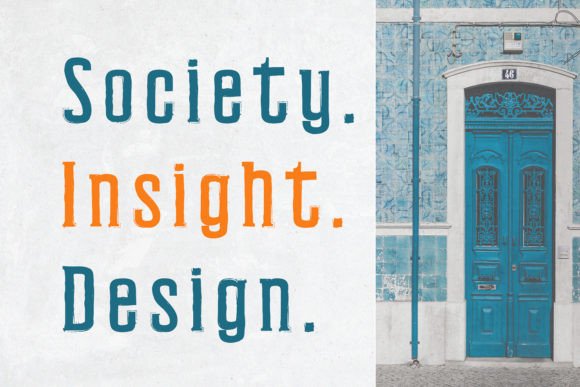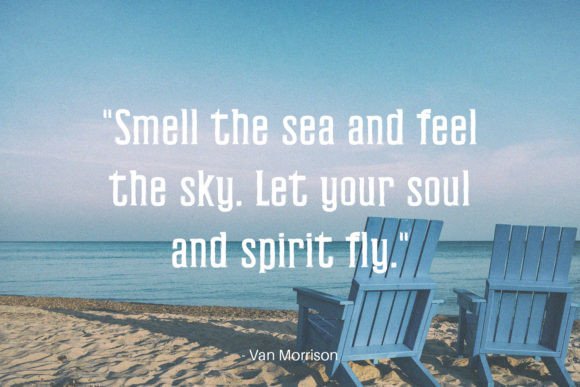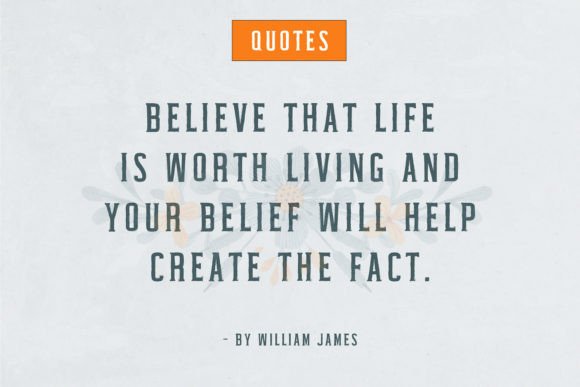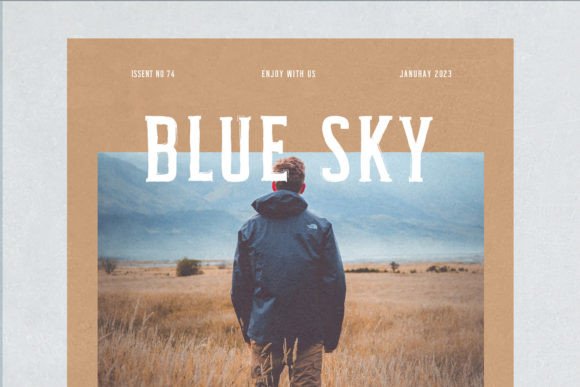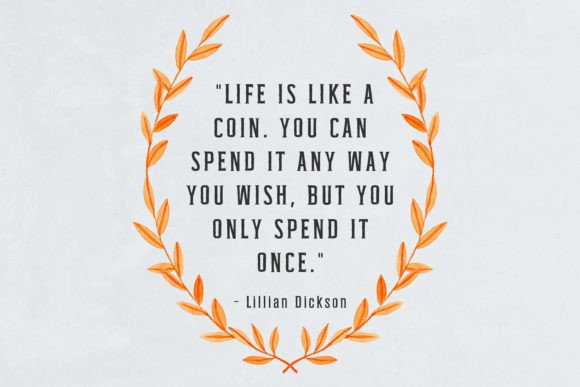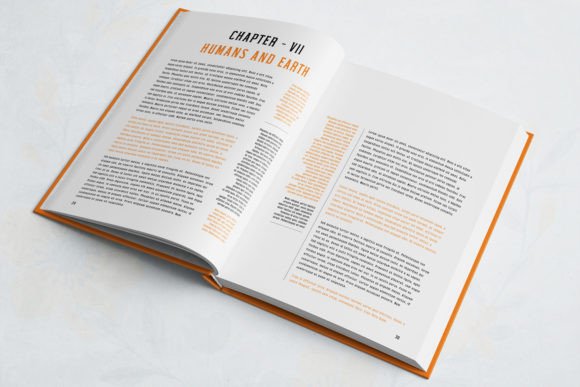
Introduction to Khayaal Font
Have you ever been in a rush to meet a design deadline, only to realize that the perfect font is just out of reach? It’s a frustrating experience that many designers know all too well. But what if I told you that there’s a solution that can elevate your next creative project from ordinary to extraordinary?
Enter the Khayaal Font, a modern, bold, and sophisticated handcrafted font that’s perfect for designers who crave a unique and high-quality design resource. With its beautiful and well-balanced characters, this font is a game-changer for anyone looking to add a touch of elegance to their work.
Whether you’re working on a packaging design, a presentation, or a logo, the Khayaal Font is an invaluable asset that can take your creative project to the next level. And the best part? It’s available for free download, making it an accessible and transparent background for designers of all levels.
Key Features of Khayaal Font
- Khayaal Font is a high-quality design resource, perfect for creative projects that require a unique and elegant touch.
- Khayaal Font features a transparent background, allowing for seamless integration with any design element.
- Khayaal Font is designed to be highly legible, with a clear and crisp appearance that makes it perfect for use in body text, headings, and titles.
- Its unique characteristics and elegant design make it an excellent choice for designers looking to add a touch of sophistication to their creative project.
Honest Review: Khayaal Font
I recently had the chance to work with the Khayaal Font, and I must say, it’s been a game-changer for my creative project. The font is sleek, modern, and perfect for designing a high-quality logo or branding material.
- ✨ High-quality design: The Khayaal Font is incredibly detailed and visually appealing, making it perfect for any design project.
- ✨ Transparent background: The font’s transparent background makes it easy to work with, allowing for seamless integration with other design elements.
- ⚠️ Limited font styles: While the Khayaal Font is high-quality, it’s only available in a limited number of font styles, which may not be suitable for all design projects.
- ⚠️ Not suitable for large-scale projects: Due to its limited font styles, the Khayaal Font may not be the best choice for large-scale design projects that require a wide range of font styles.
Overall, I’m thoroughly impressed with the Khayaal Font, and I would highly recommend it to designers who are looking for a high-quality, free design resource for their creative project.
In PowerPoint and Word, you can use the Khayaal Font to add a touch of elegance to your presentations and documents. Simply select the font from the dropdown menu and customize it to suit your needs. The transparent background feature of this font makes it ideal for creating visually appealing designs.
To get the most out of the Khayaal Font, use it in conjunction with other design elements to create a cohesive look. Experiment with different font sizes, colors, and styles to find the perfect combination for your creative project.
The Khayaal Font is perfect for various creative projects, including graphic design, digital art, and print design. It’s also great for creating social media graphics, business cards, and other marketing materials.